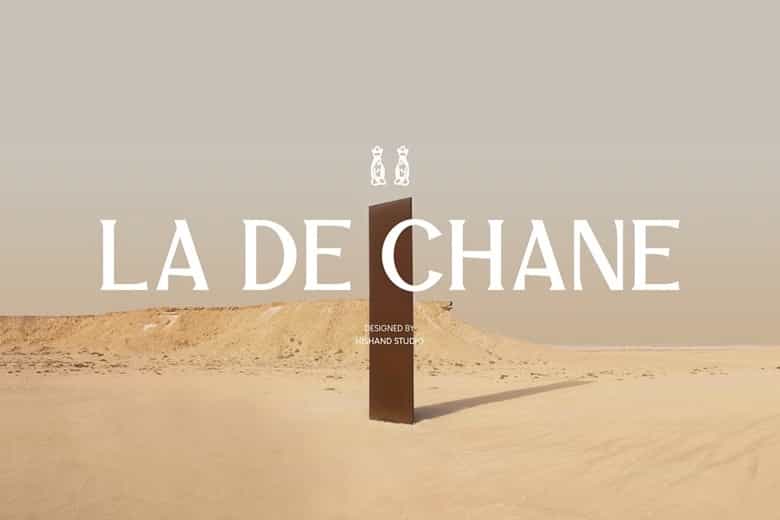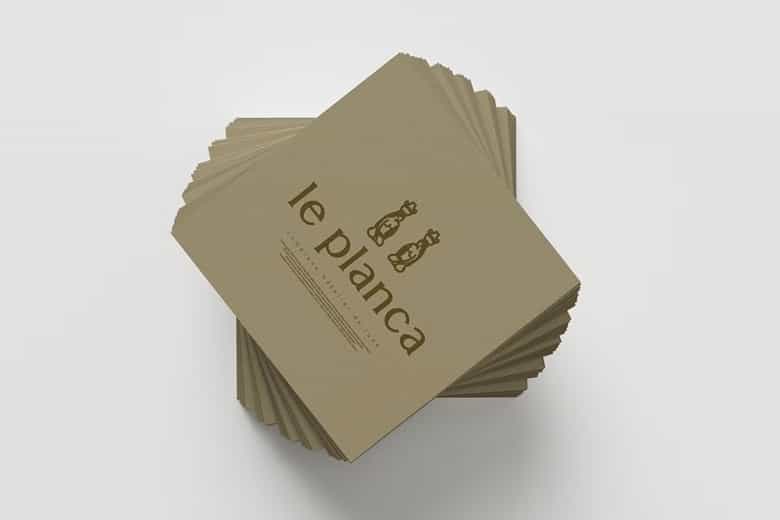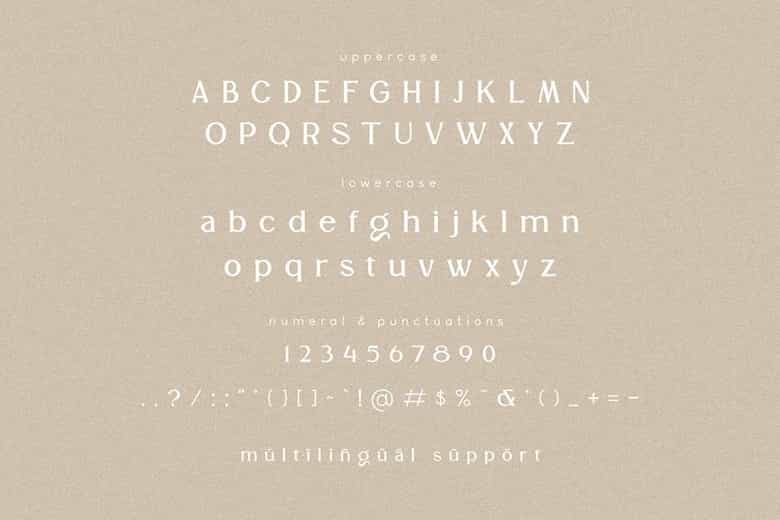
La De Chane is a distinguished genuine serif font with a touch of modernism and chic. High contrast, fine lines, and perfectly sharp and fine serifs give it an air of sophistication and self-assurance to whatever it is used in. Especially suitable for fashion brands, luxury logos and lettering, magazines, and luxurious packaging,